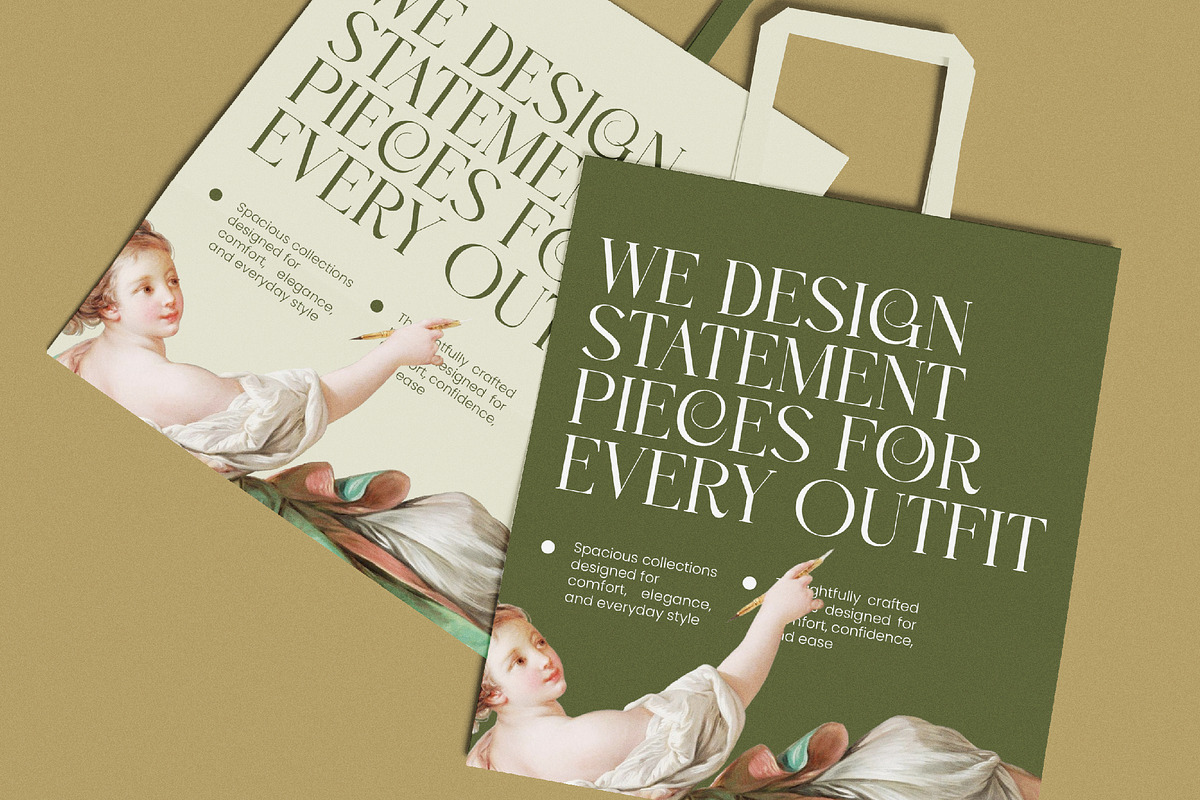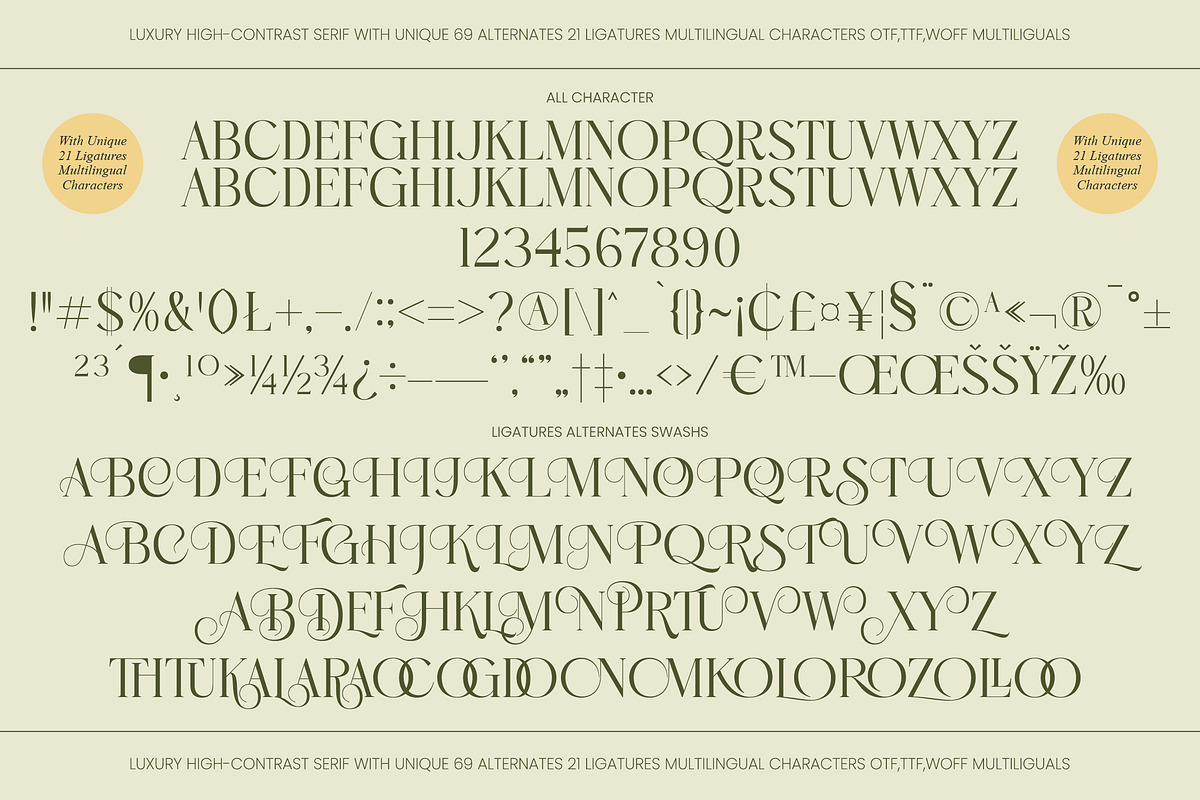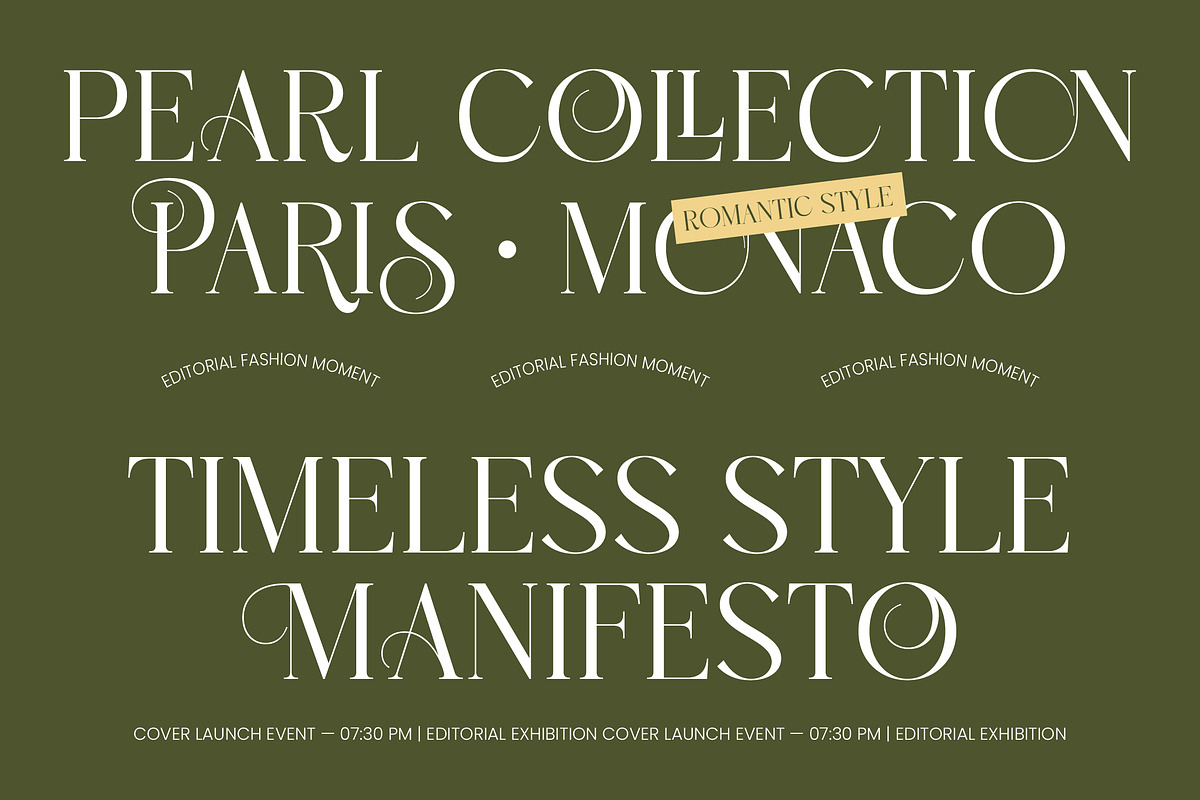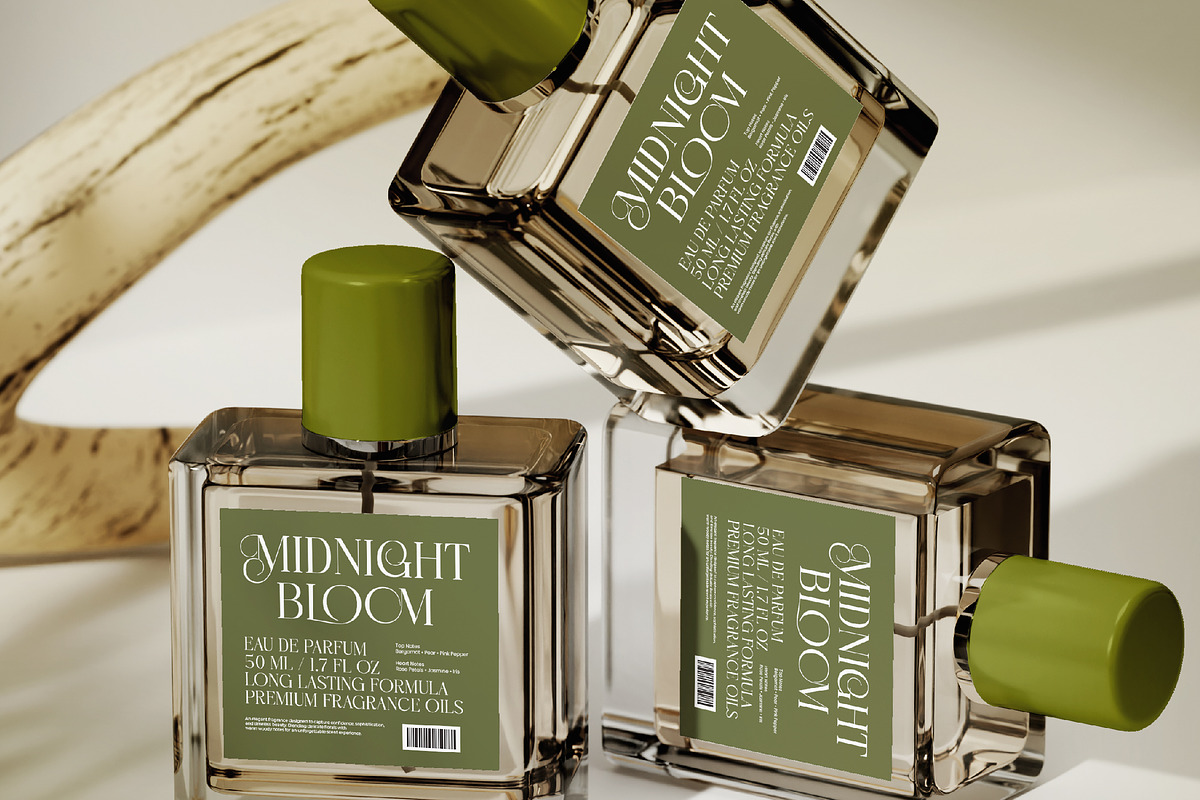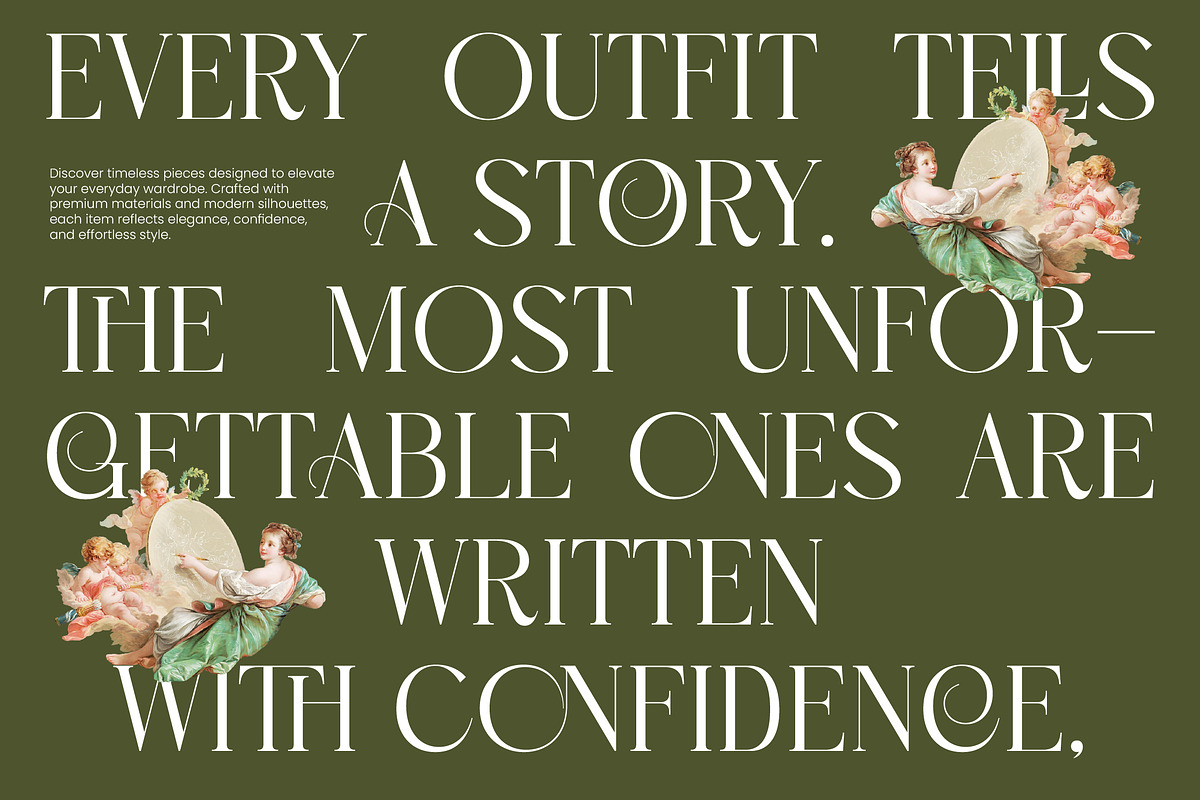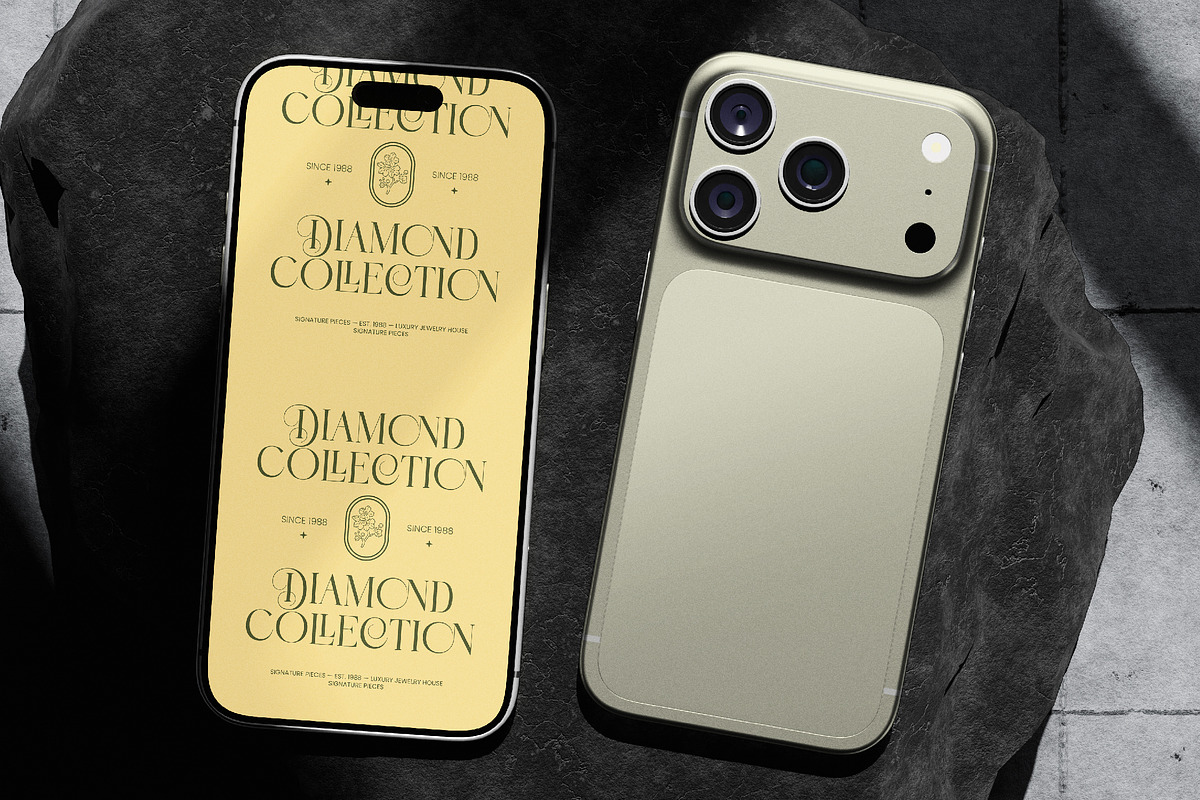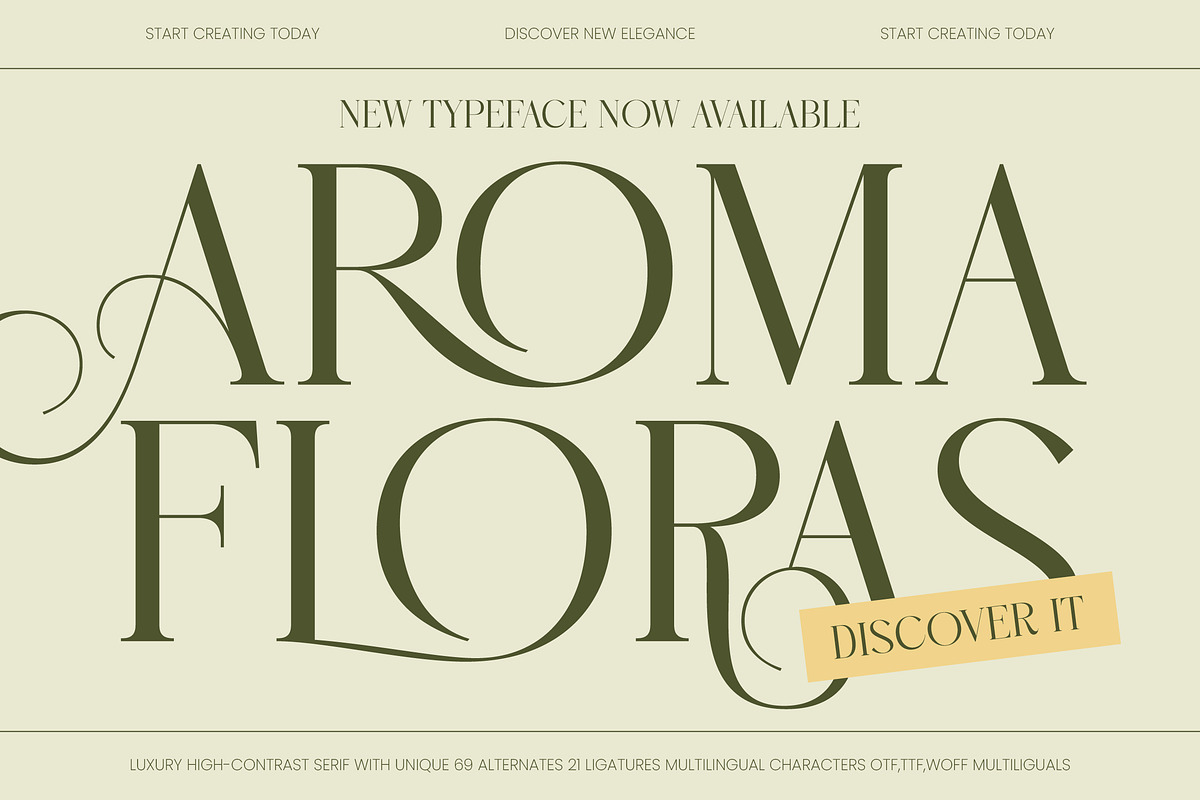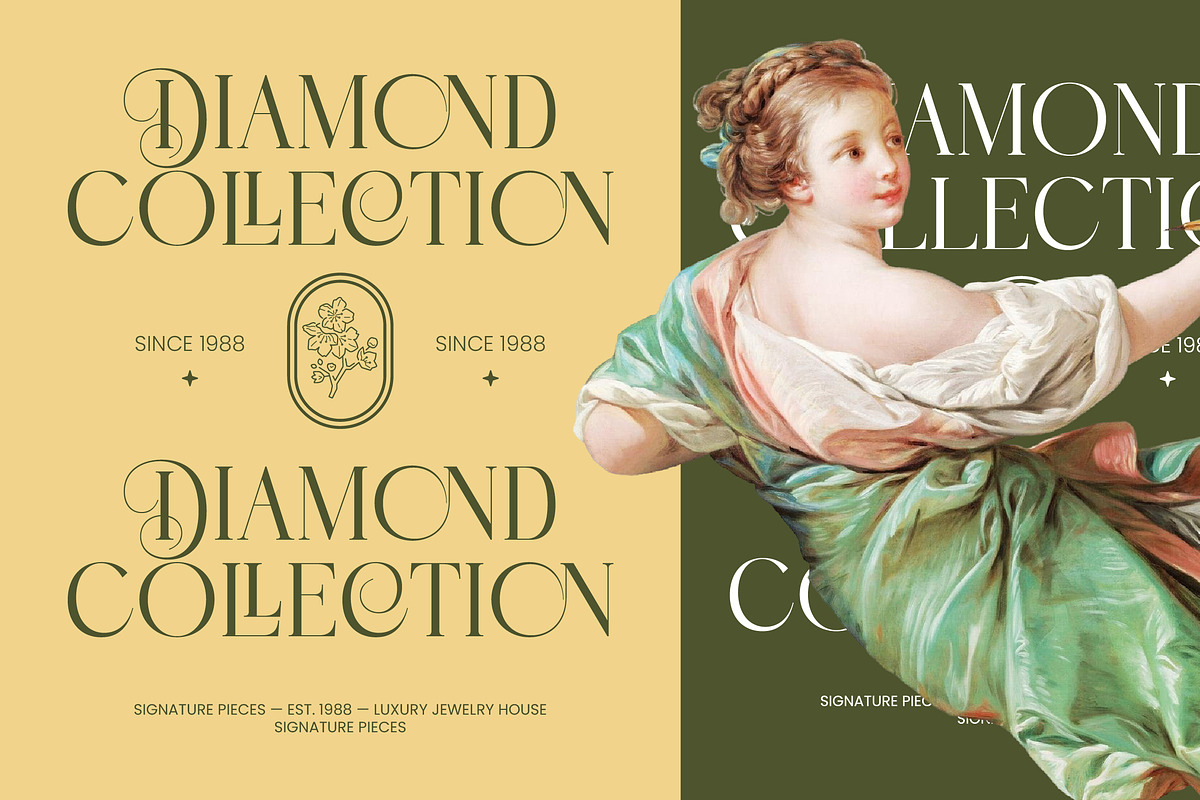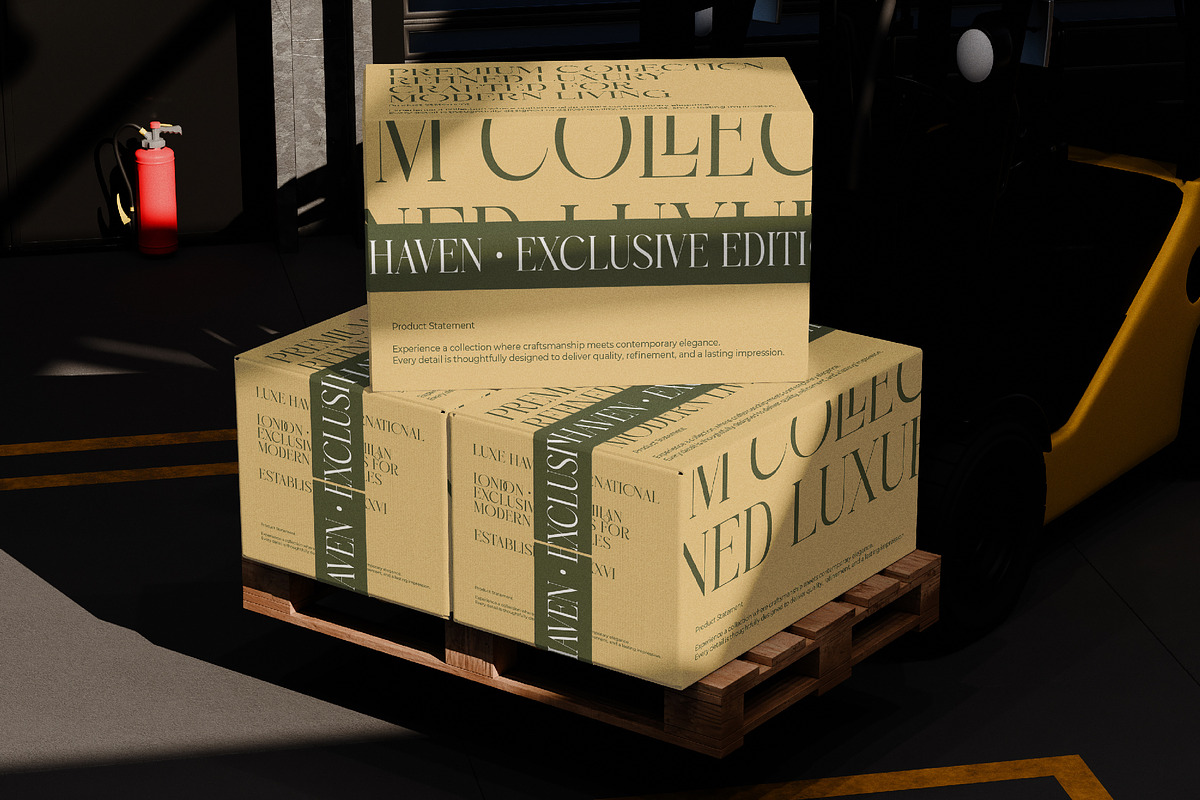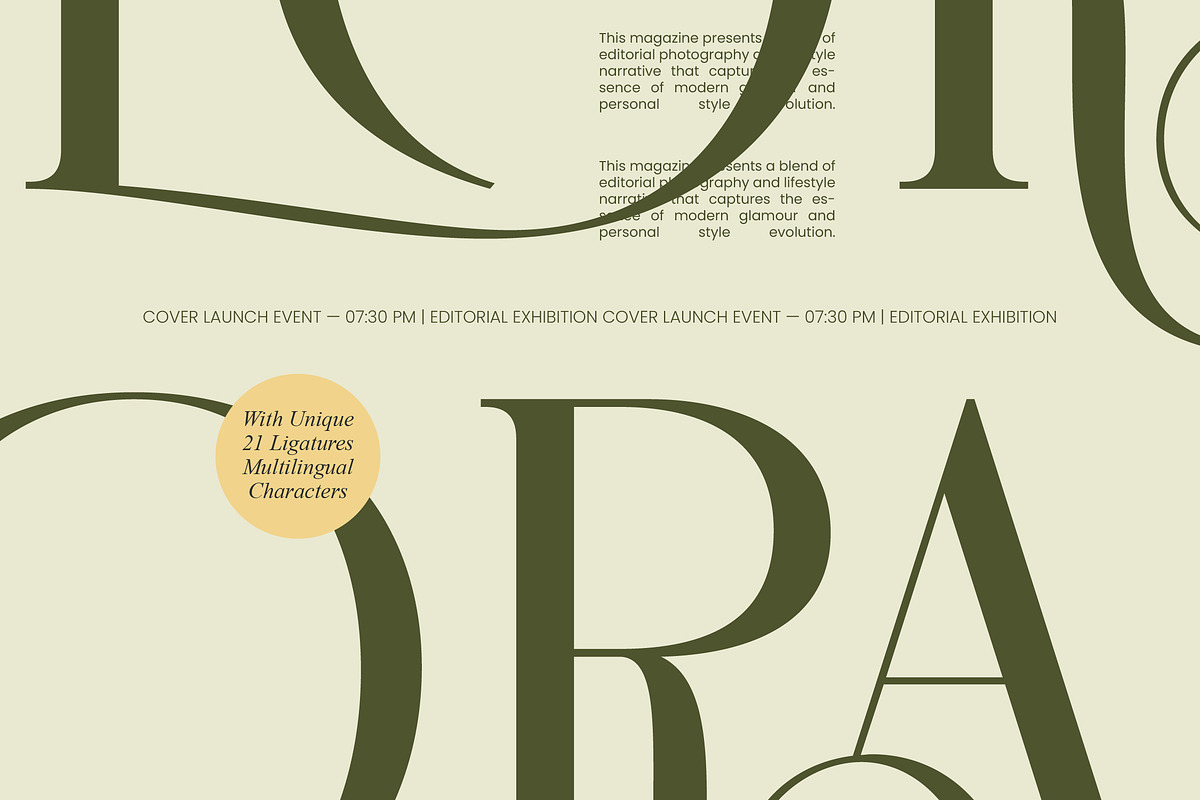
Aroma Floras Luxury High Contrast
Aroma Floras - Luxury High Contrast Serif , Elevate your design identity with a typeface that embodies pure sophistication and timeless grace. Aroma Floras - Luxury High Contrast Serif is a masterpiece of modern typography, characterized by its dramatic stroke contrast and refined serifs that command attention on any canvas. Its elegant aesthetic captures a sense of organic beauty and high-end fashion, making it an essential tool for designers seeking to convey prestige, exclusivity, and a premium visual narrative.
Experience unparalleled creative flexibility through a vast array of unique characters and decorative elements. This typeface includes 69 alternates and 21 ligatures, allowing you to create custom-tailored headlines with a bespoke calligraphic feel. With its extensive multilingual support, Aroma Floras - Luxury High Contrast Serif adapts seamlessly across global markets, making it incredibly versatile for international projects and diverse brand narratives that require a sophisticated global presence.
Precision-engineered for high-impact visibility, this typeface is the definitive choice for a wide variety of premium applications. It is perfect for luxury branding, high-end packaging, and editorial design where a sophisticated voice is paramount. Whether utilized for cosmetic labels, fashion magazine spreads, or exclusive event invitations, Aroma Floras - Luxury High Contrast Serif ensures your message is delivered with unmatched poise and professional clarity.
Invest in a timeless typographic asset that bridges the gap between classic grace and contemporary luxury. Available in OTF, TTF, and WOFF formats, Aroma Floras - Luxury High Contrast Serif provides the technical reliability required for both digital and print environments. Transform your creative vision into a compelling visual reality by choosing a font that represents the pinnacle of modern serif design and commercial excellence for the modern market.